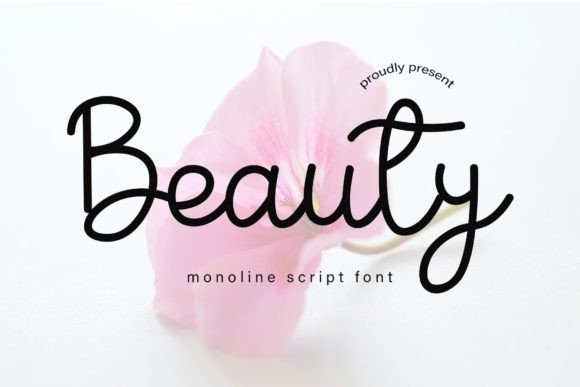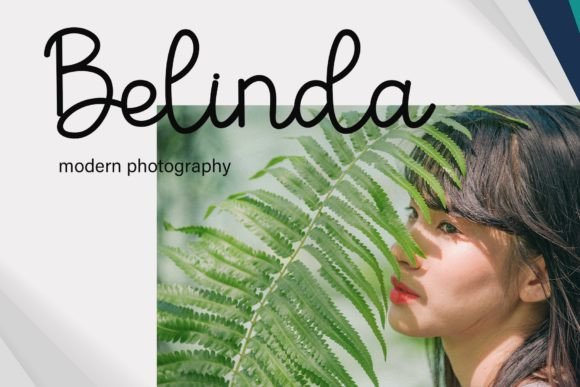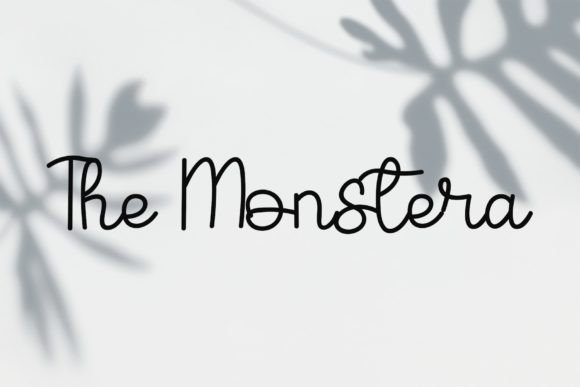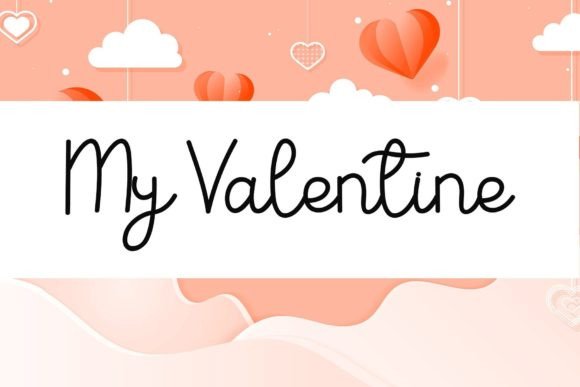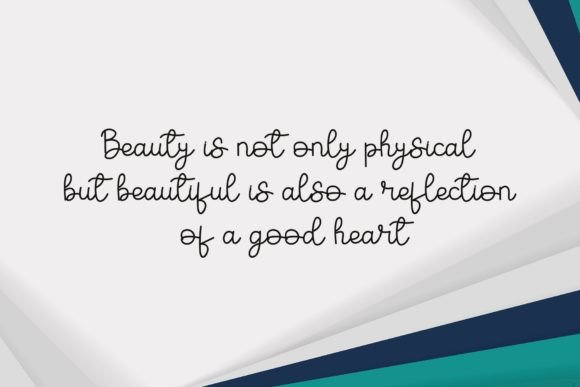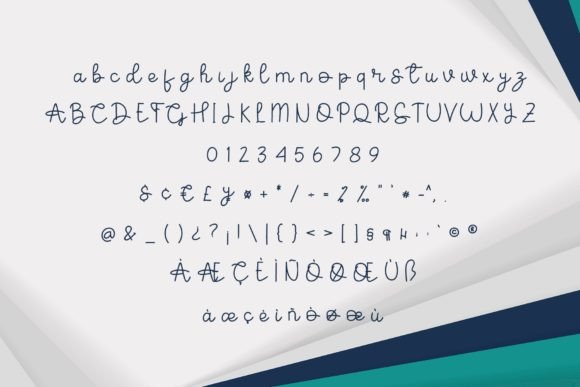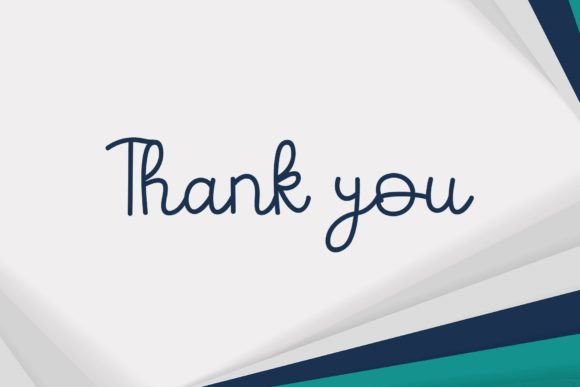
Beauty Font
Beauty is a sweet and beautiful handwritten font that brings a touch of luxury and elegance to your design projects. The font’s distinctive feature is the characters that gracefully dance along the baseline, adding a sense of movement and sophistication. Whether you’re working on invitations, branding, or any design that calls for a touch of beauty, this font is crafted to add a luxurious spark to your creations.
The handwritten style of Beauty adds a personal and organic feel to your text, making it suitable for projects that aim to convey warmth and authenticity. The characters’ graceful dance along the baseline adds a dynamic and stylish element, contributing to the overall visual appeal.
In invitations, Beauty can elevate the design with its sweet and elegant script. Whether used for wedding invitations, event announcements, or special occasions, the font brings a luxurious touch that enhances the sophistication of the invitation.
Branding projects benefit from Beauty’s unique handwritten style. The font adds a personalized and high-end feel, making it suitable for luxury brands, beauty products, or any business seeking a touch of elegance in its visual identity.
Any design project that calls for a beautiful and luxurious aesthetic, such as packaging, labels, or promotional materials, can be enhanced with the addition of Beauty font. Its sweet and graceful characters contribute to a visually appealing and stylish presentation.
In summary, Beauty is more than just a font; it’s a design tool crafted to bring sweetness and elegance to your projects. Whether applied to invitations, branding, packaging, or other design endeavors, this font adds a luxurious spark that dances along the baseline, creating a beautiful and sophisticated visual impact.